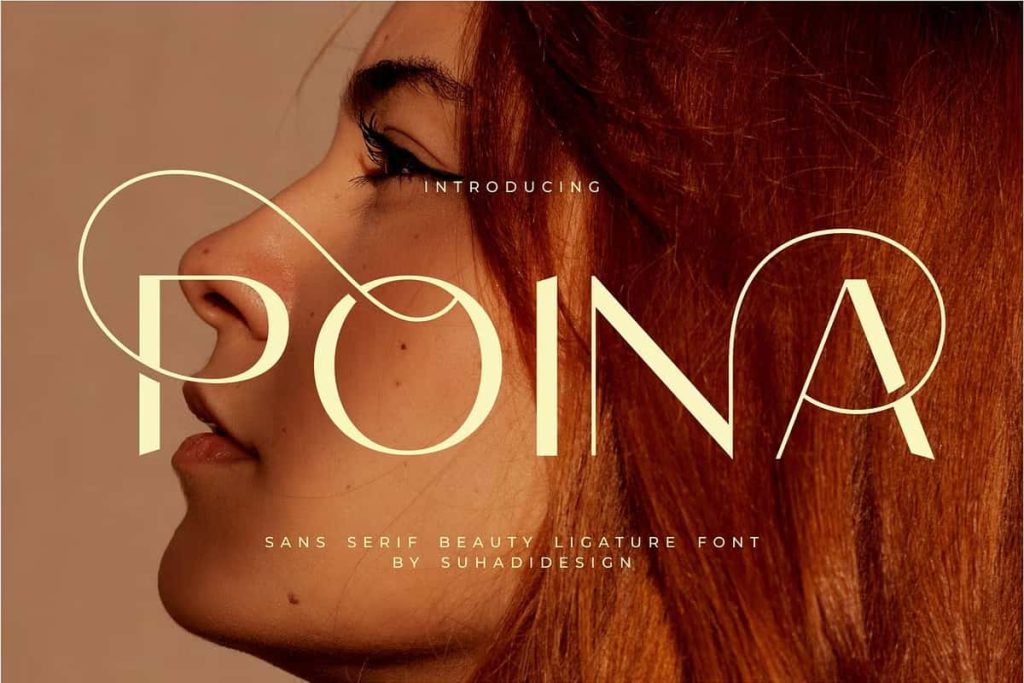
Poina – Beauty Ligature Font
Poina Beauty Ligature Font – Elegant Modern Sans Serif for Premium Branding
Poina Beauty Ligature Font is a sophisticated modern sans serif typeface designed to bring elegance, style, and professionalism to every creative project. Featuring beautifully crafted ligatures and clean contemporary letterforms, Poina offers the perfect balance between minimalism and luxury. Whether you’re creating a beauty brand, cosmetic packaging, fashion campaign, editorial layout, or stylish logo, this font helps your typography stand out with a refined and memorable appearance.
Designed for creatives who appreciate clean aesthetics, Poina delivers smooth letter connections that add personality without sacrificing readability. Every character has been carefully crafted to produce a polished look that works across both digital and print media. The result is a versatile font that feels modern, fashionable, and timeless.
Modern Sans Serif with Beautiful Ligatures
Poina transforms ordinary text into elegant typography through its collection of stylish ligatures. These natural character combinations create seamless letter connections, giving headlines, logos, and brand names a distinctive premium appearance. Instead of relying on decorative flourishes, Poina uses subtle details that make every word look professionally designed.
The font maintains excellent readability while introducing enough visual character to help your designs feel unique. This makes it suitable for both large display text and shorter body content where style and clarity are equally important.
Perfect for Beauty and Luxury Branding
Poina was created with premium branding in mind. Its clean structure and elegant proportions complement luxury products and sophisticated visual identities. Whether you’re launching a skincare collection, cosmetic line, perfume brand, or wellness business, this typeface communicates quality, confidence, and modern elegance.
The stylish ligatures also help create memorable logos and wordmarks that instantly capture attention. Combined with thoughtful color palettes and minimalist layouts, Poina becomes an essential typography choice for high-end branding projects.
Ideal Applications
• Beauty and cosmetic branding
• Luxury product packaging
• Fashion labels
• Logo design
• Wordmarks
• Magazine covers
• Editorial layouts
• Book covers
• Business cards
• Social media graphics
• Advertising campaigns
• Website headers
• Marketing materials
• Product labels
• Creative presentations
Designed for Creative Professionals
Graphic designers, branding specialists, marketing teams, content creators, and business owners will appreciate the flexibility that Poina provides. Its minimalist appearance adapts easily to different visual styles, allowing you to create everything from elegant luxury branding to clean modern marketing materials.
The font performs exceptionally well across multiple industries beyond beauty. Lifestyle brands, interior design studios, boutique businesses, wellness companies, jewelry brands, photographers, and premium service providers can all benefit from its sophisticated appearance.
Create Elegant Logos and Wordmarks
A strong logo begins with exceptional typography. Poina’s carefully designed letterforms make it an excellent choice for logo creation and custom wordmarks. The integrated ligatures naturally enhance letter combinations, helping your brand identity feel exclusive and professionally crafted.
Whether you are developing a new business identity or refreshing an existing brand, Poina delivers a clean and contemporary foundation that remains memorable across websites, packaging, signage, and promotional materials.
Excellent for Editorial and Digital Design
Poina brings elegance to magazines, books, catalogs, newsletters, and editorial publications. Its balanced proportions allow headlines to command attention while maintaining a clean, sophisticated presentation. The modern style also translates beautifully to digital platforms including websites, online advertisements, email campaigns, and social media content.
For Instagram posts, Pinterest graphics, Facebook advertisements, and product launches, Poina helps create consistent branding that feels polished and visually engaging.
Features
• Modern sans serif design
• Elegant ligature characters
• Clean and minimalist letterforms
• Professional appearance
• Highly readable typography
• Suitable for print and digital media
• Ideal for branding and logo creation
• Versatile for multiple creative industries
Why Choose Poina Beauty Ligature Font?
Poina combines simplicity with sophistication, allowing designers to build premium visual identities with ease. Rather than overwhelming your layout with excessive decoration, it delivers refined details through expertly crafted ligatures and balanced typography. This approach makes every project feel elegant while preserving excellent readability.
Elevate Every Design Project
If you’re searching for a modern sans serif font that communicates elegance, confidence, and luxury, Poina Beauty Ligature Font is an outstanding choice. Its stylish ligatures, contemporary structure, and timeless design help every project achieve a premium appearance. From beauty brands and fashion labels to editorial publications and creative marketing campaigns, Poina gives your typography the professional finish needed to leave a lasting impression.